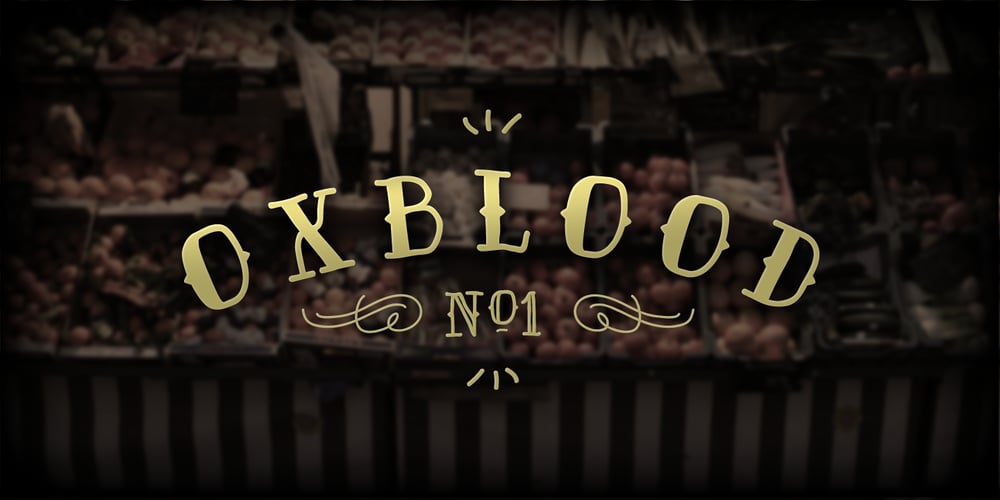
Oxblood No1
Oxblood No1 font
Oxblood No1 Font Family was designed by Adam Greasley and published by wearecolt. Oxblood No1 contains 3 styles and family package options. Oxblood No1, an uppercase only display font. Each glyph is hand drawn, taking inspiration from vintage tattoo lettering and signage.